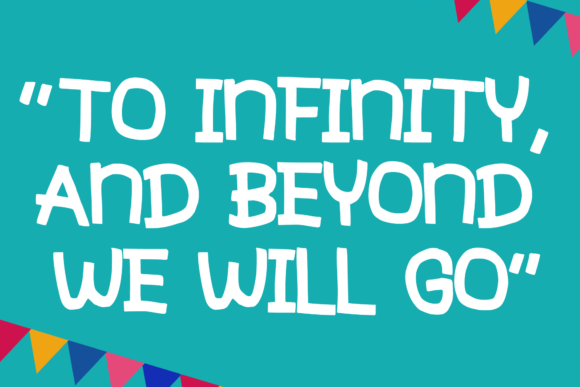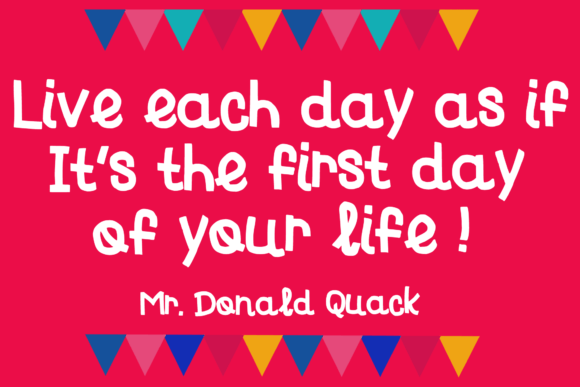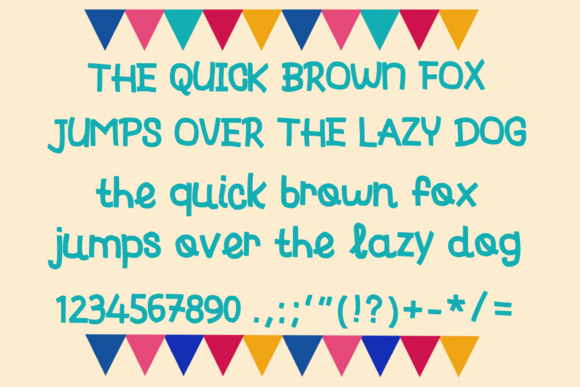
Introduction to School Fiesta Font
School Fiesta is a cool font that will be perfect for your school festival theme or other event displays.
The fun, festive, and happy vibe will be there when you use it You can use it for anything ranging from t-shirts, other merchandise, kids’ book designs, and greeting cards to stickers and posters, or anything that needs a casual touch.